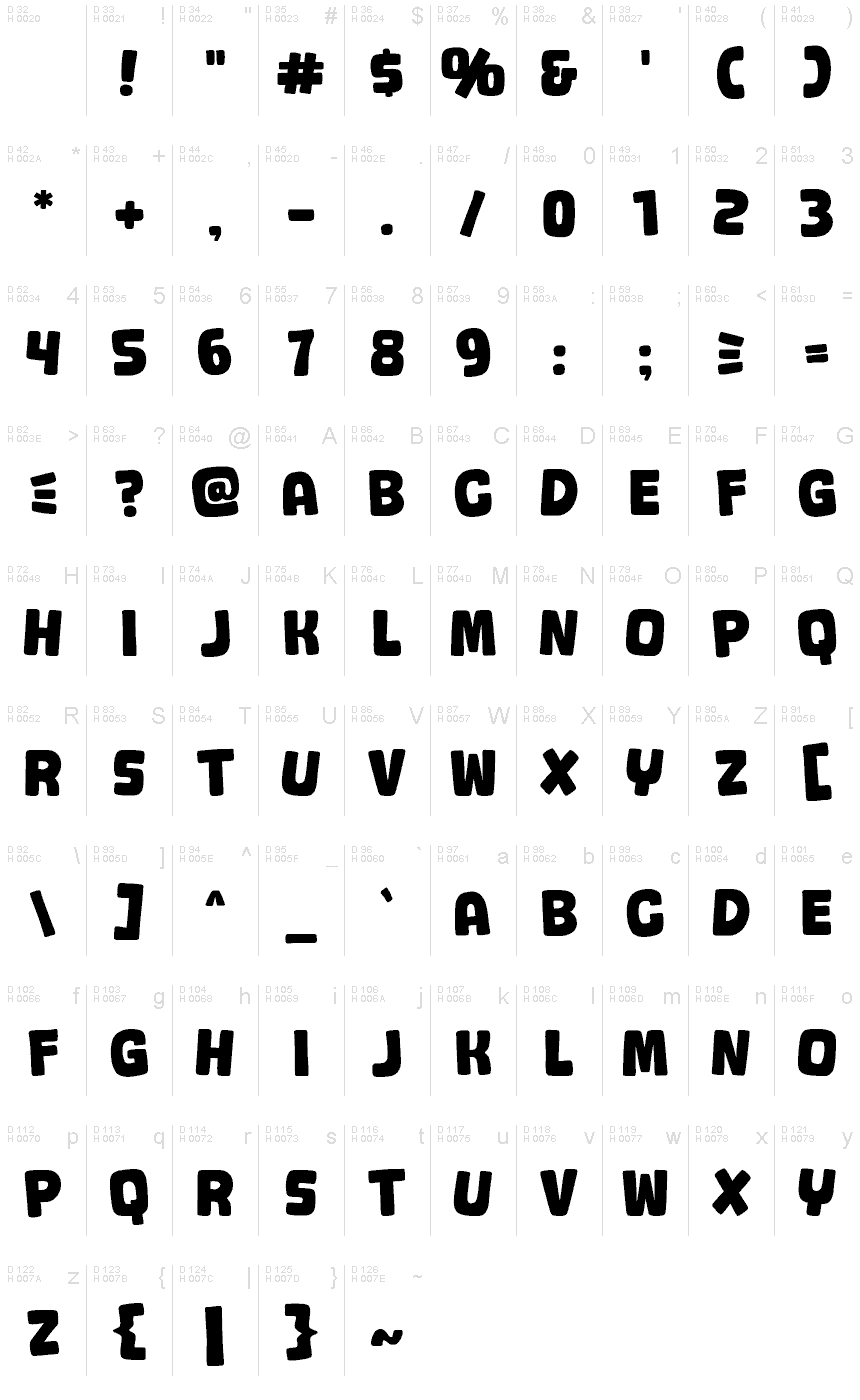
Gokhan
Gokhan font by Khurasan is a bold cartoon display typeface exuding a retro vibe. With its rounded and impactful design, it instantly captivates readers and stands out in all designs. This fun, casual style brings the 80's back into our screens in each logo, signage, or poster.